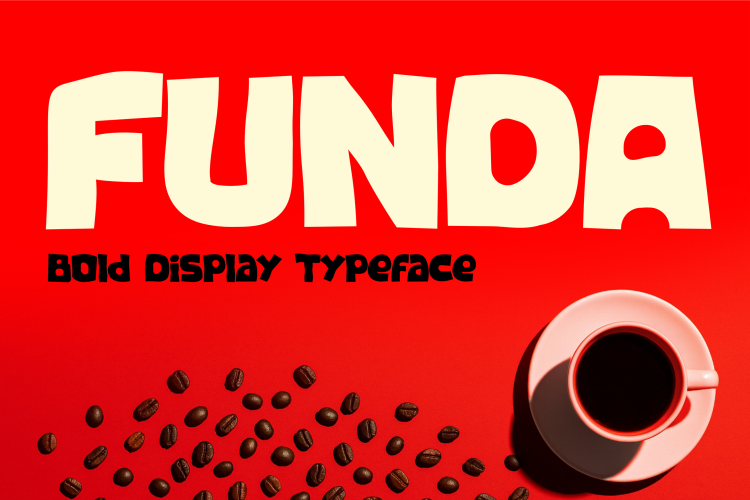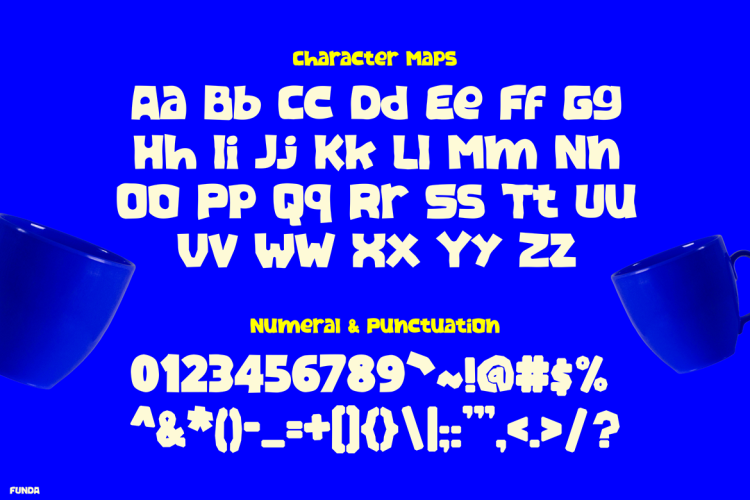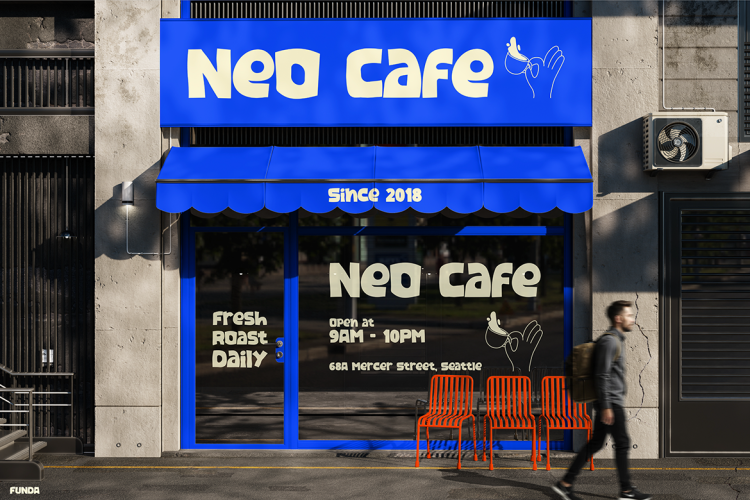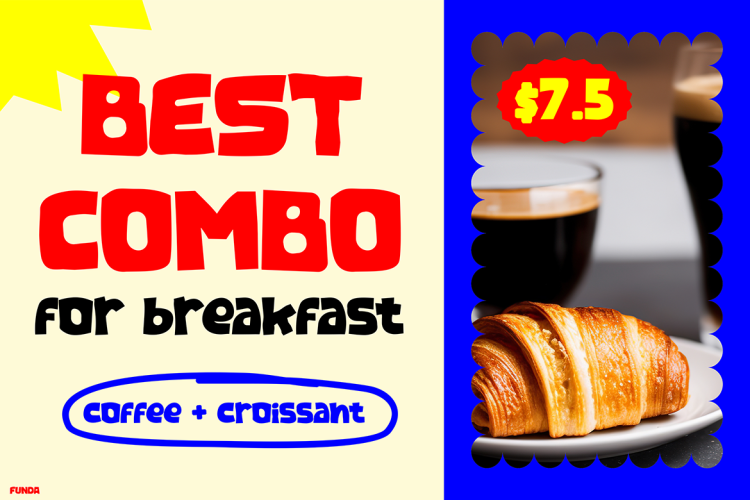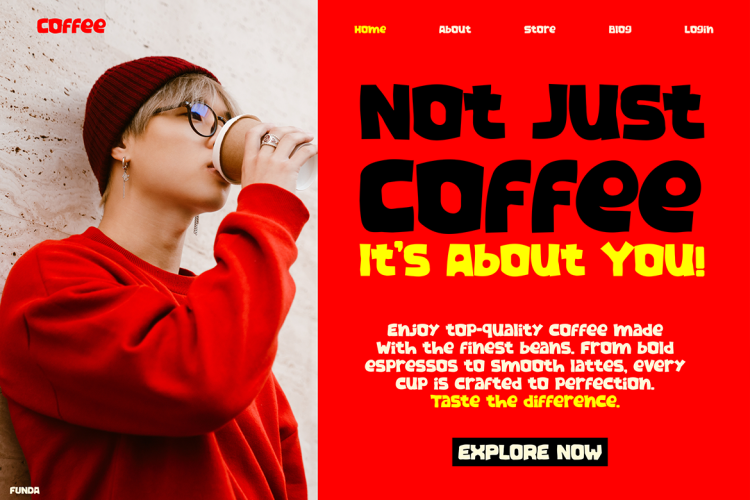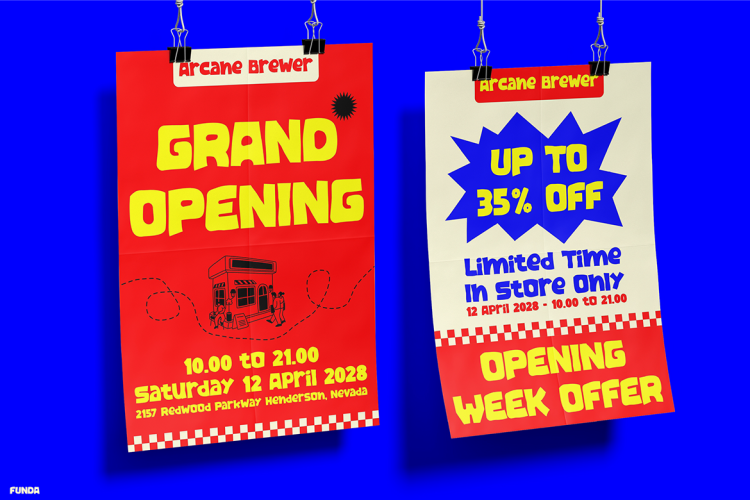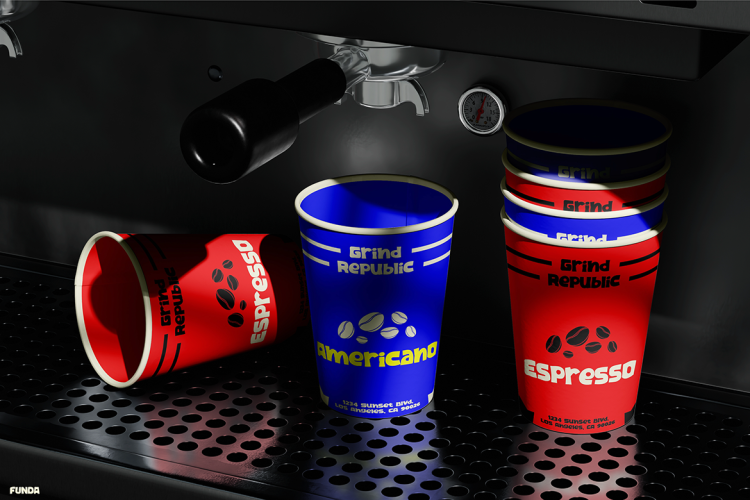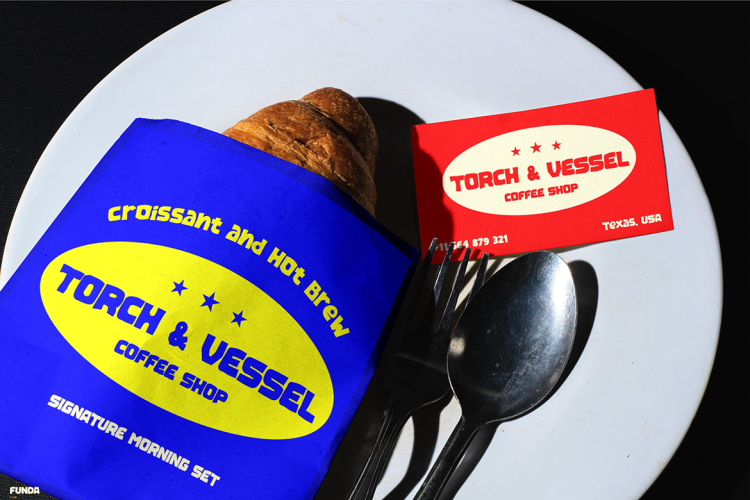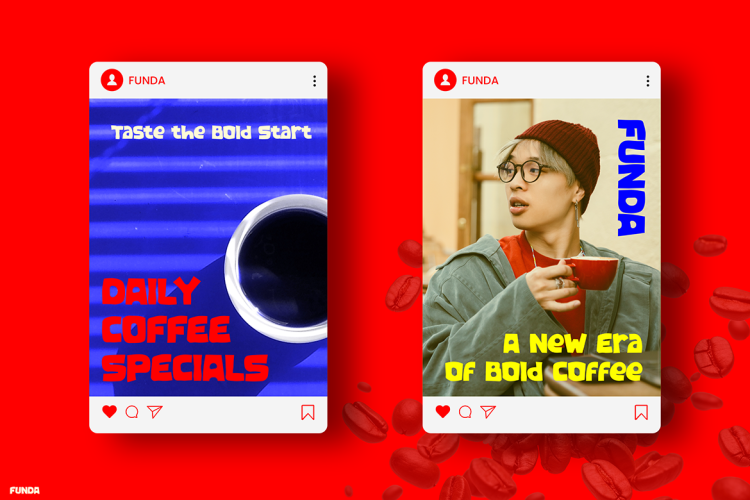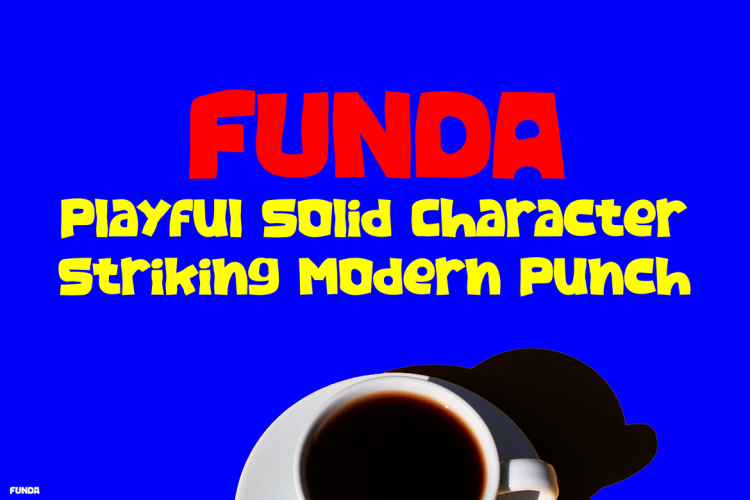
Instagram Font Funda introduces a bold and playful visual style that instantly captures attention. Its thick strokes and rounded shapes create a friendly look, yet the font remains strong and modern. Moreover, each letter feels clean and expressive, making it perfect for designs that need both clarity and personality. The preview images show how well it blends with bright colors and cafรฉ themes. Therefore, this font offers a balanced style that works beautifully in many creative settings.
Instagram Font Funda is a bold display typeface designed to deliver instant impact. It features smooth curves and balanced proportions that give it a warm and confident feel. In addition, its chunky shapes help headlines stand out even in busy layouts. The font also performs well in social media graphics because its style is clear, catchy, and easy to read. Furthermore, it brings a fun and modern energy that enhances menus, posters, banners, and digital ads. Whether used in large cafรฉ signage or short Instagram stories, it stays sharp and consistent. Consequently, Funda offers versatility for many creative projects. let your visuals stand out with confidenceโyour audience will feel the difference instantly.
Instagram Font Funda Perfect For
Cafรฉ, bakery, and beverage branding
Designers seeking strong, readable, and stylish headlines
Social media creators who want scroll-stopping text
Packaging for food, coffee, snacks, or lifestyle items
Trendy ads, youth campaigns, and fun commercial promotions
Startups aiming for a bold yet friendly visual identity
Instagram Font Funda brings a mix of power and charm to every design. It increases visual impact while keeping a warm and modern tone. Moreover, it encourages viewers to stop, look, and engage with your message. If you want a font that elevates your branding and makes your visuals more memorable, Funda is an excellent choice. Add it to your collection today and create designs that feel fresh, energetic, and unforgettable.